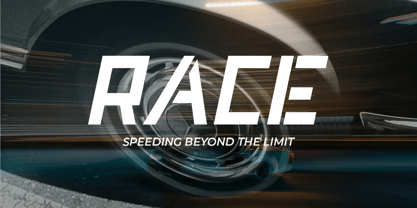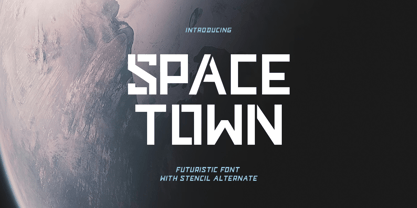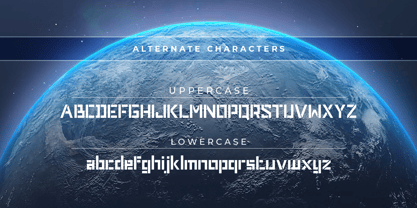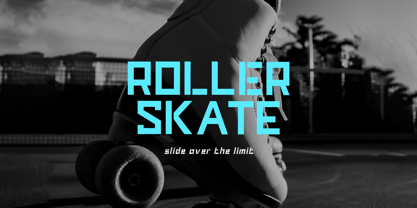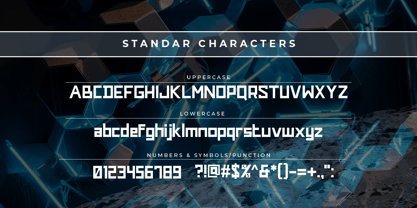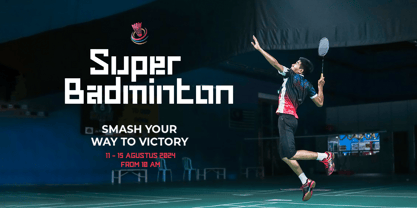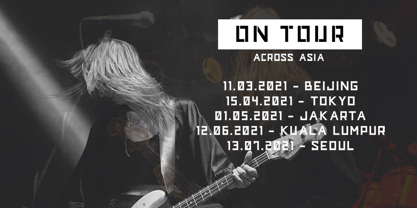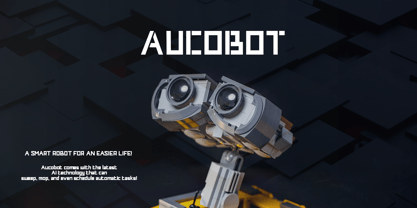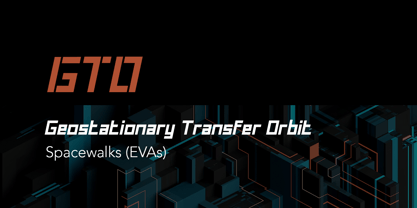
Space Town
by Bale Type
The Space Town Font Family was designed by Albin Pawaz and published by Bale Type. Space Town contains 2 styles and family package options. More about this family
Space Town is a futuristic logo font with digital square shape. Comes with stencil alternates that you can use along with the standard version to make your design looks stunning. You can use this font for any purposes, such as logotype, poster, quotes, branding or any project that needs futuristic and modern looks. This font also comes with italic version and already support multi language.